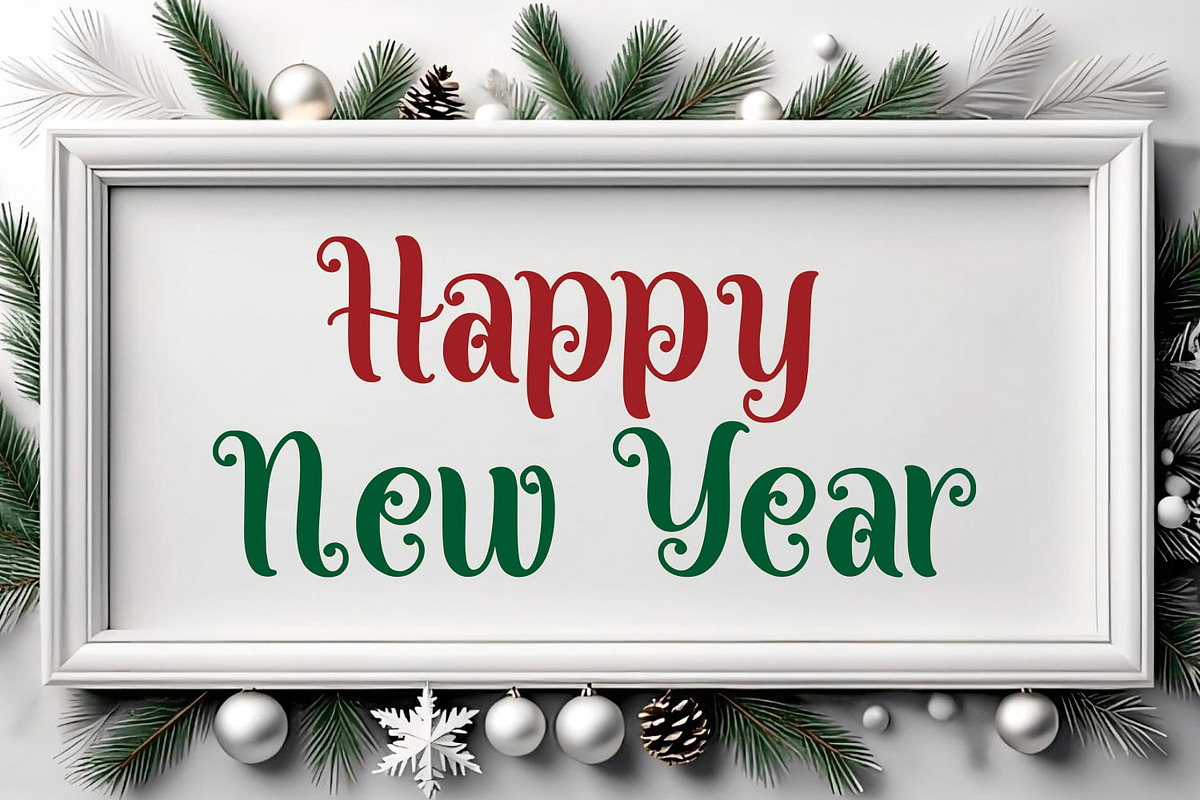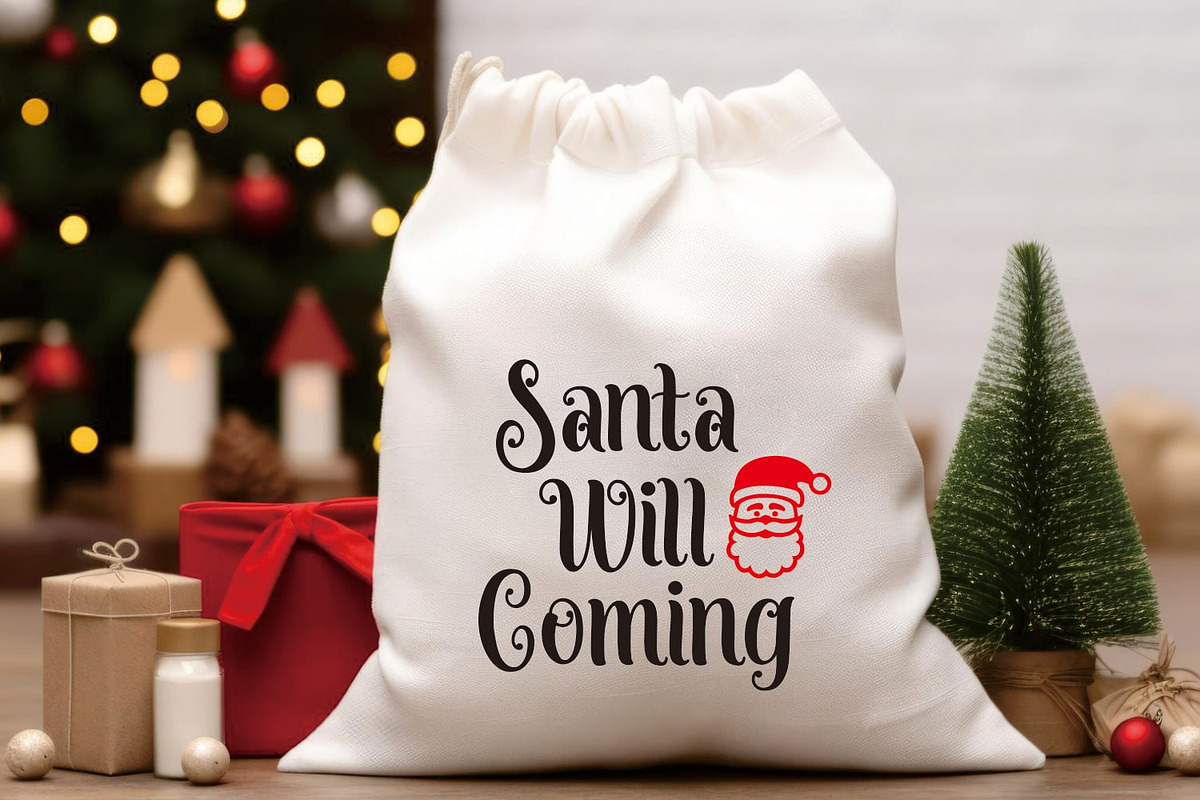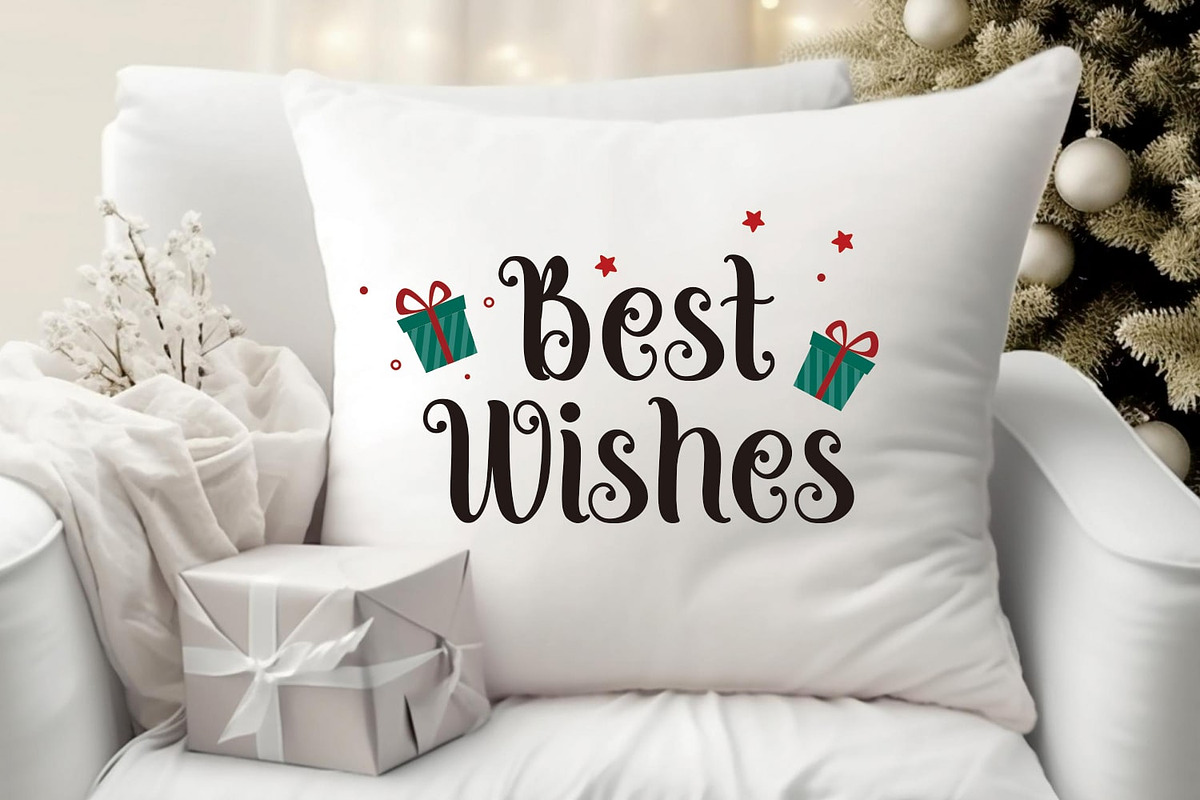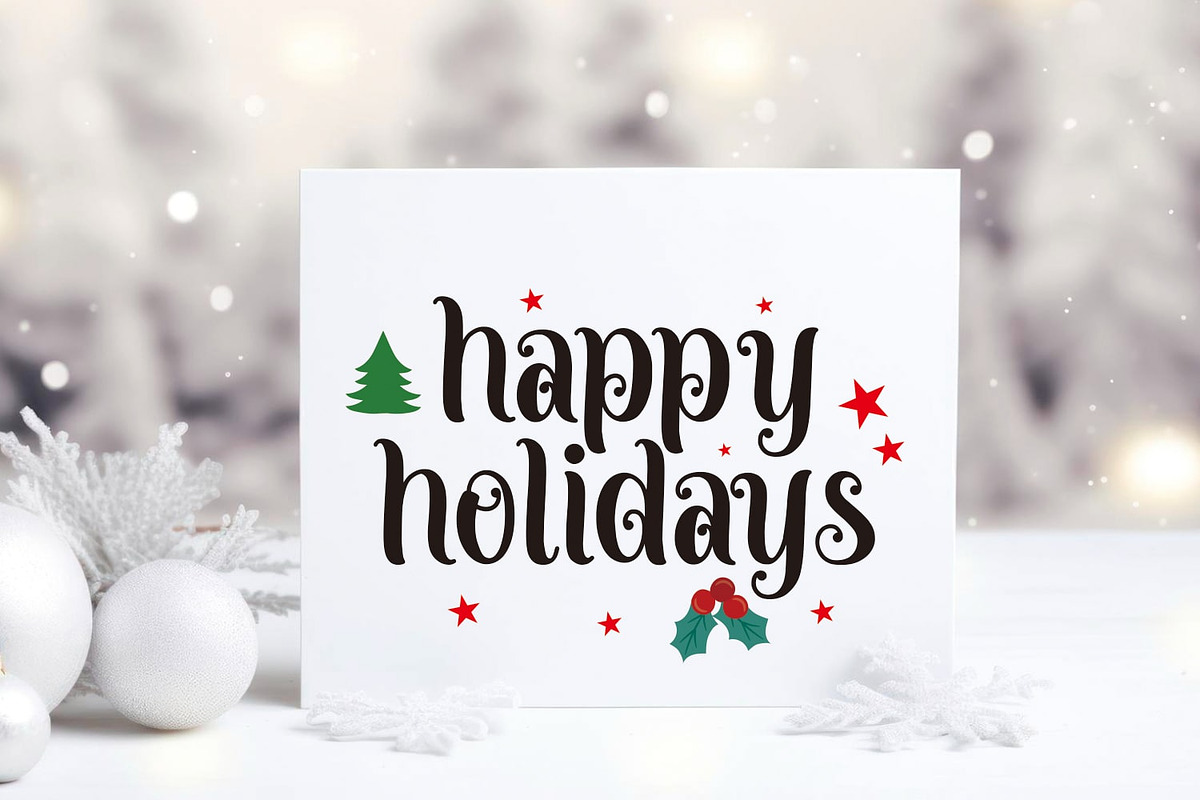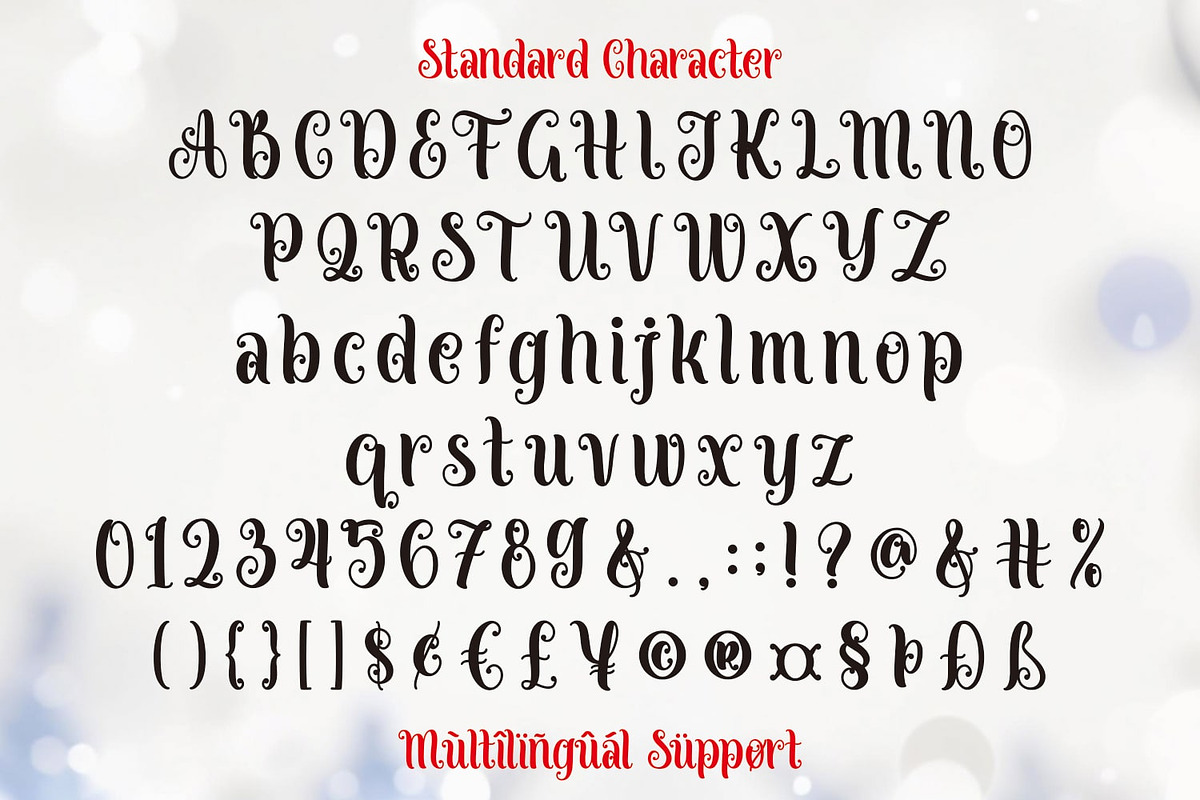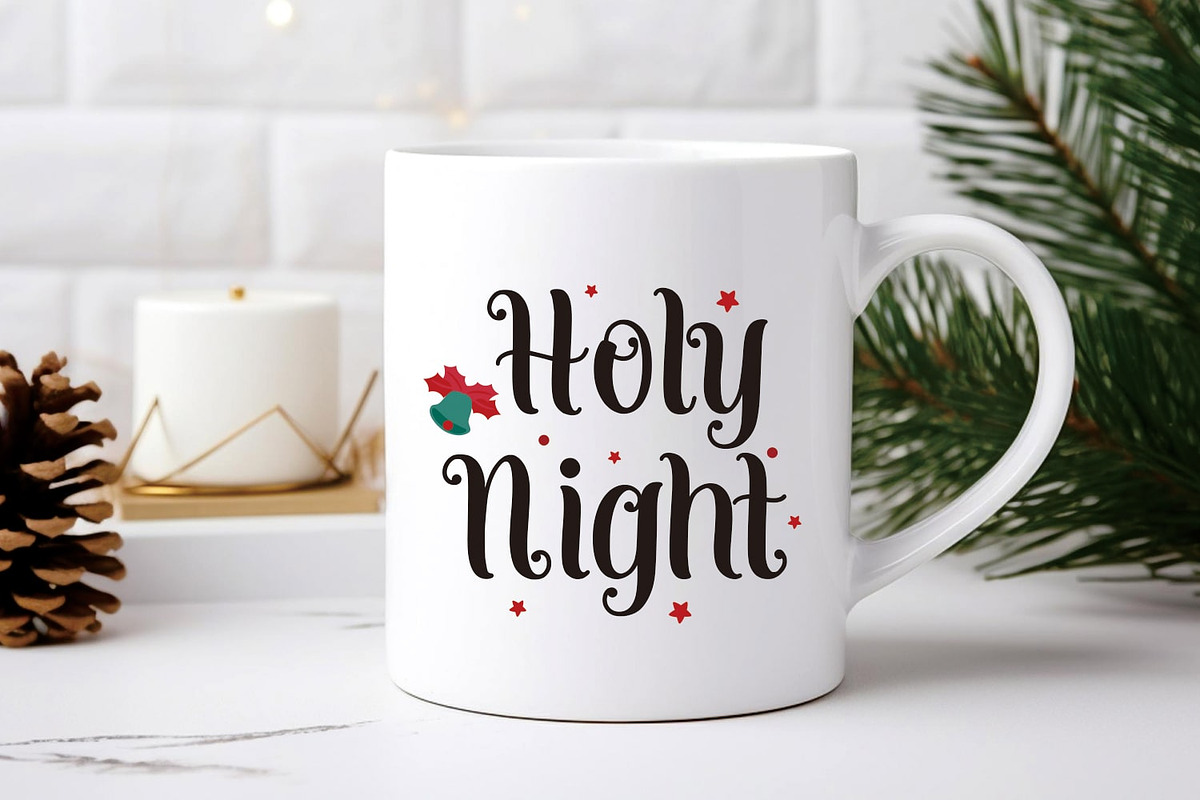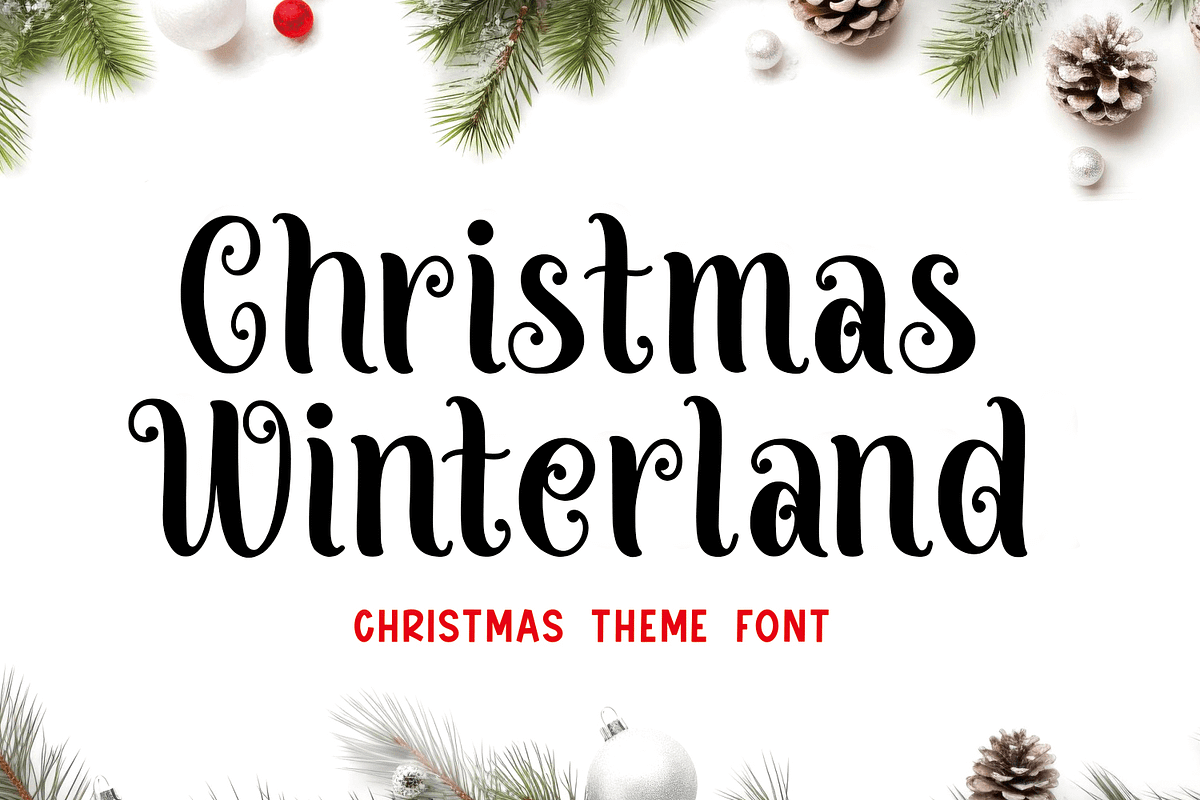
Christmas Winterland
Christmas Winterland font is a delightful display font designed to infuse charm and festive spirit into your holiday-themed projects. With its cute and whimsical style, this font captures the essence of Christmas, making it perfect for various occasions such as Christmas celebrations, winter holidays, Thanksgiving, and festive crafting endeavors.
This charming font is specifically crafted for adding a touch of warmth to your creative ventures, including Christmas greeting cards, holiday decorations, and craft lettering projects. Its playful design lends itself well to the joyful and cheerful atmosphere associated with the holiday season.
Whether you're creating festive banners, embroidery designs, or personalized decorations, Christmas Winterland font adds a delightful flair to your work. Its unique combination of decorative elements and a cute demeanor makes it an ideal choice for spreading holiday cheer in a visually appealing and memorable way.
Embrace the festive spirit and elevate your Christmas-themed designs with the enchanting and versatile Christmas Winterland font, tailored to infuse your projects with a sense of joy, warmth, and celebration.